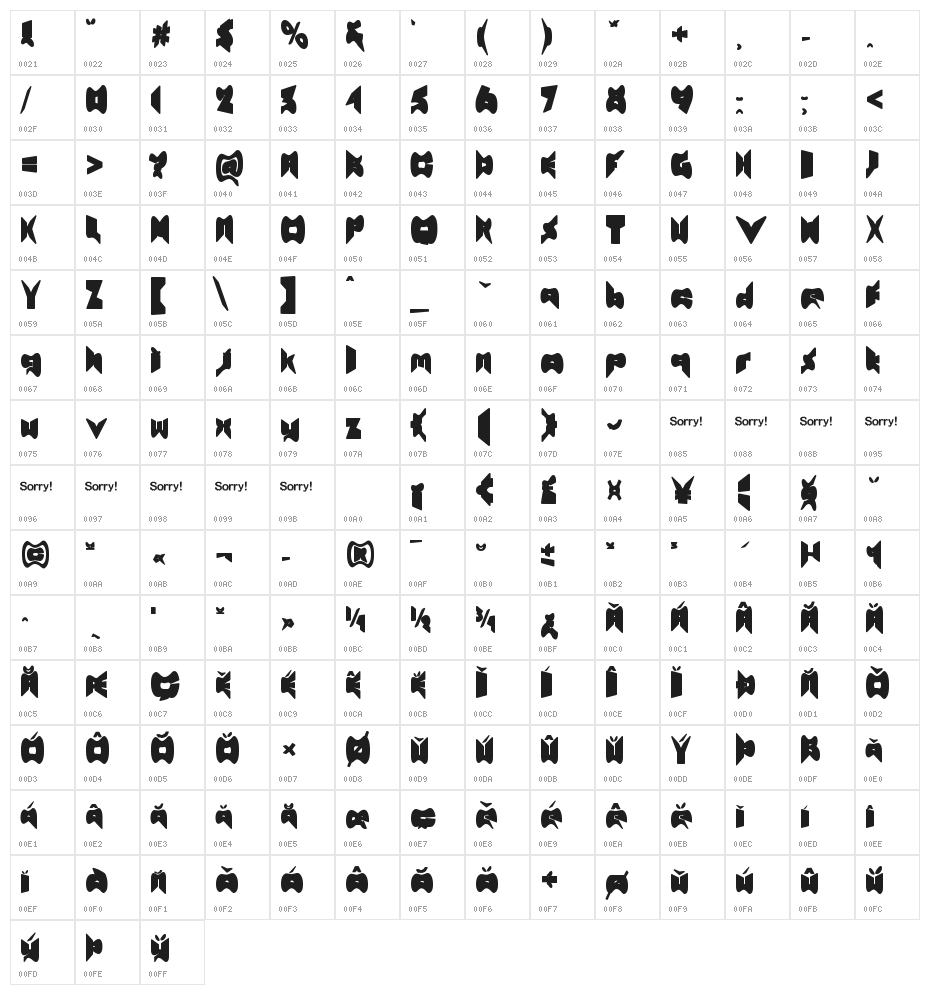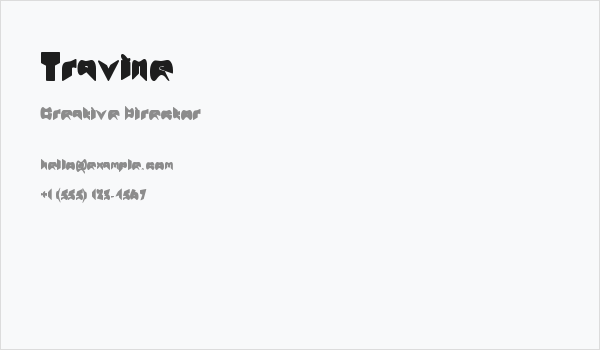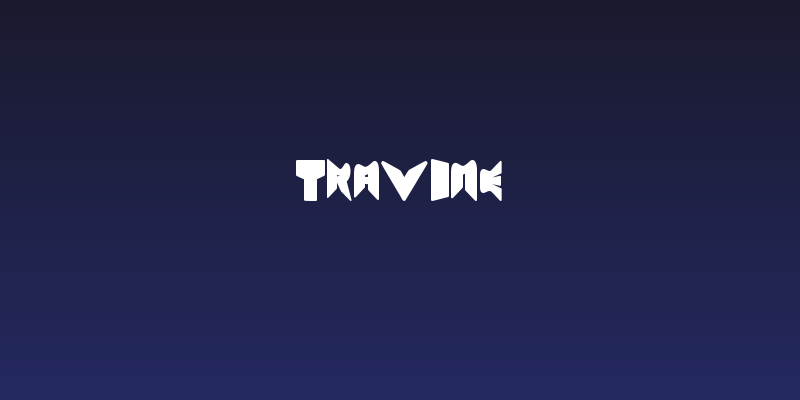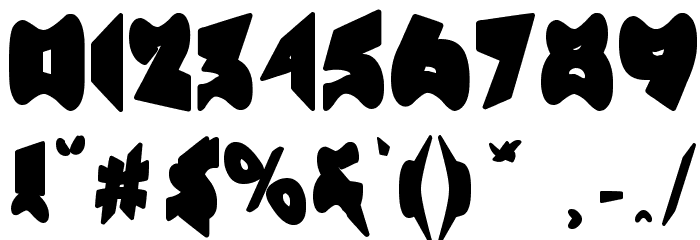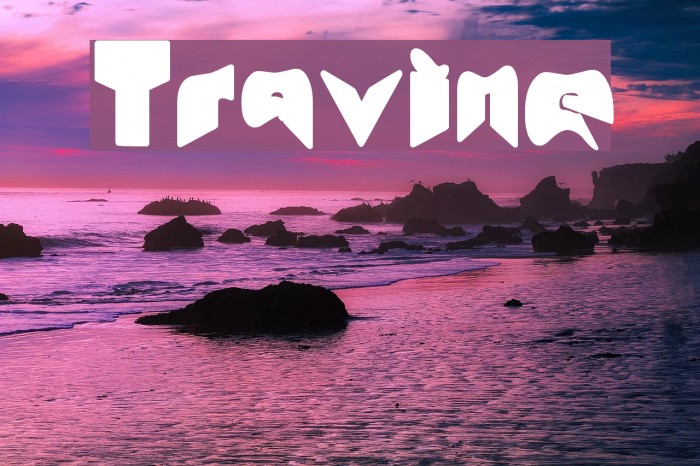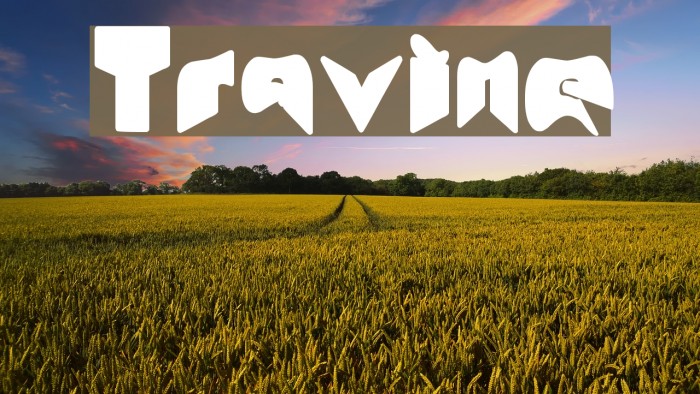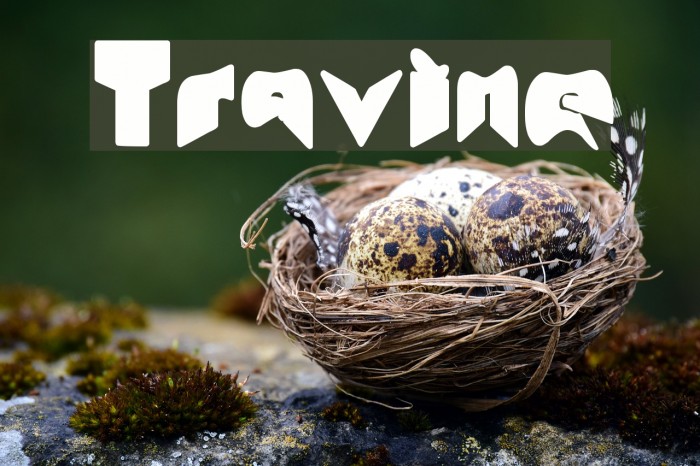
Travine Font
Travine Description
This font features a bold and striking design with a highly decorative style. The characters are crafted with sharp angles and unique geometric shapes, giving them a futuristic and edgy appearance. The uppercase and lowercase letters maintain a consistent style, with a strong emphasis on angular cuts and bold lines. The numbers and special characters follow the same design principles, ensuring a cohesive look across all elements. This font is ideal for projects that require a standout, modern aesthetic.
| Proposed Projects | Ideal for branding, posters, album covers, and any project needing a bold, modern look. |